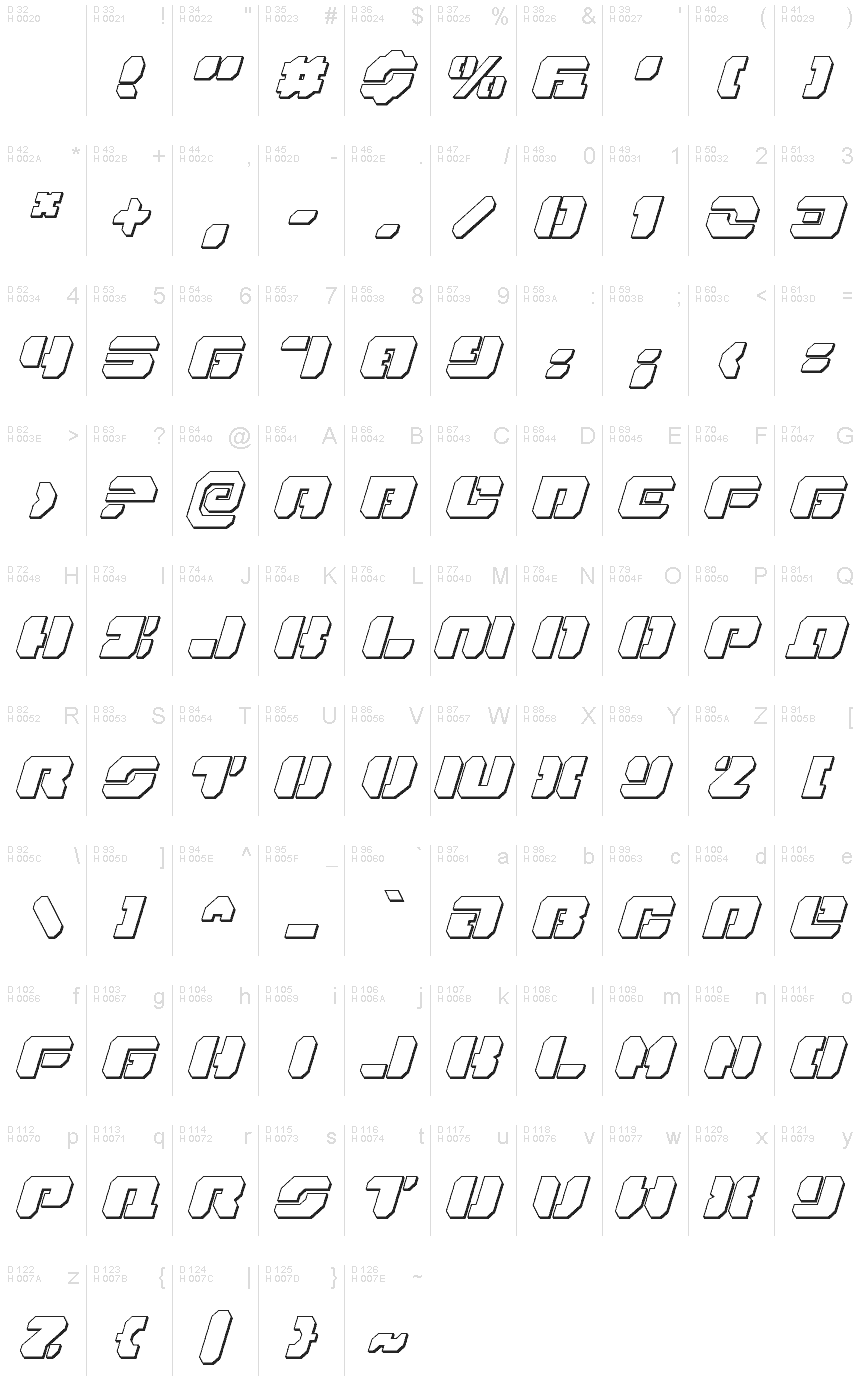
Dan Stargate 3D Italic font by Iconian Fonts is a display typeface with an eye-catching tech-inspired aesthetic. It’s decorative, futuristic, and ideal for all your modern-day designs. The font features geometric elements in bold expanded characters which enhance its general appeal. What makes it even more artistic are the sharp angles that come together to form glyph shapes you won’t be able to look away from.
Presentazione e campione visivo del carattere Dan Stargate 3D Italic
Mappa dei caratteri di Dan Stargate 3D Italic
Mappa dei caratteri di Dan Stargate 3D Italic: Latino di base, pagina 1
Glifi del carattere Dan Stargate 3D Italic — Latino di base, pagina 1
Dan Stargate 3D Italic